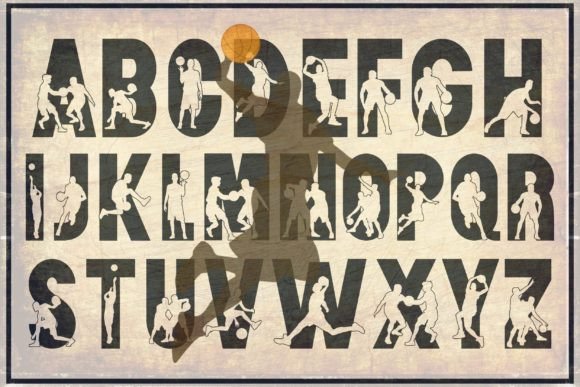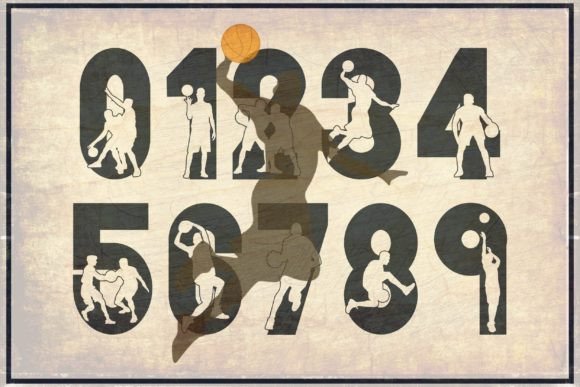
Basketball King Font: The Ultimate Choice for Designers and Crafters
In the world of typography, fonts play a crucial role in conveying messages, expressing emotions, and creating visual identities. For designers and crafters, finding the right font can be a daunting task, especially when it comes to creating unique and eye-catching designs. This is where the Basketball King Font comes in – a cool and original-looking decorative display font that is perfect for a wide range of creative projects.
What is Basketball King Font?
Basketball King Font is a decorative display font designed to add a touch of excitement and energy to any design project. Its unique and original look makes it stand out from other fonts, making it perfect for designers and crafters who want to create something truly special. The font is suitable for a variety of applications, including logotype, headlines, corporate and brand identity, apparel industry, posters, movies, games, magazines, books, comics, cartoons, or any creative design projects.
Key Features of Basketball King Font
The Basketball King Font has several key features that make it an ideal choice for designers and crafters. Some of its notable features include:
- Unique and Original Design: The font has a distinctive look that sets it apart from other fonts, making it perfect for creating unique and eye-catching designs.
- Decorative Display Font: The font is designed to be used as a display font, making it perfect for headlines, titles, and other attention-grabbing elements.
- Versatile: The font can be used for a wide range of applications, from logotype and branding to posters, movies, and games.
- Easy to Read: Despite its decorative nature, the font is easy to read, making it perfect for use in body text and other applications where readability is important.
How to Use Basketball King Font
The Basketball King Font can be used in a variety of ways, depending on the design project. Here are some ideas to get you started:
- Logotype and Branding: Use the font to create a unique and memorable logo for your brand or business.
- Posters and Flyers: Use the font to create eye-catching posters and flyers that grab attention and convey your message.
- Apparel Industry: Use the font to create unique and stylish designs for t-shirts, hats, and other apparel.
- Movies and Games: Use the font to create titles, subtitles, and other visual elements for movies and games.
Benefits of Using Basketball King Font
There are several benefits to using the Basketball King Font in your design projects. Some of the most notable benefits include:
- Unique and Eye-Catching Designs: The font allows you to create unique and eye-catching designs that stand out from the crowd.
- Versatility: The font can be used for a wide range of applications, making it a great addition to any designer’s toolkit.
- Easy to Read: The font is easy to read, making it perfect for use in body text and other applications where readability is important.
- Time-Saving: The font saves you time and effort by providing a pre-designed solution for your typography needs.
In conclusion, the Basketball King Font is a cool and original-looking decorative display font that is perfect for designers and crafters. Its unique and eye-catching design makes it stand out from other fonts, making it perfect for creating unique and eye-catching designs. With its versatility, ease of use, and readability, the Basketball King Font is a great addition to any designer’s toolkit.